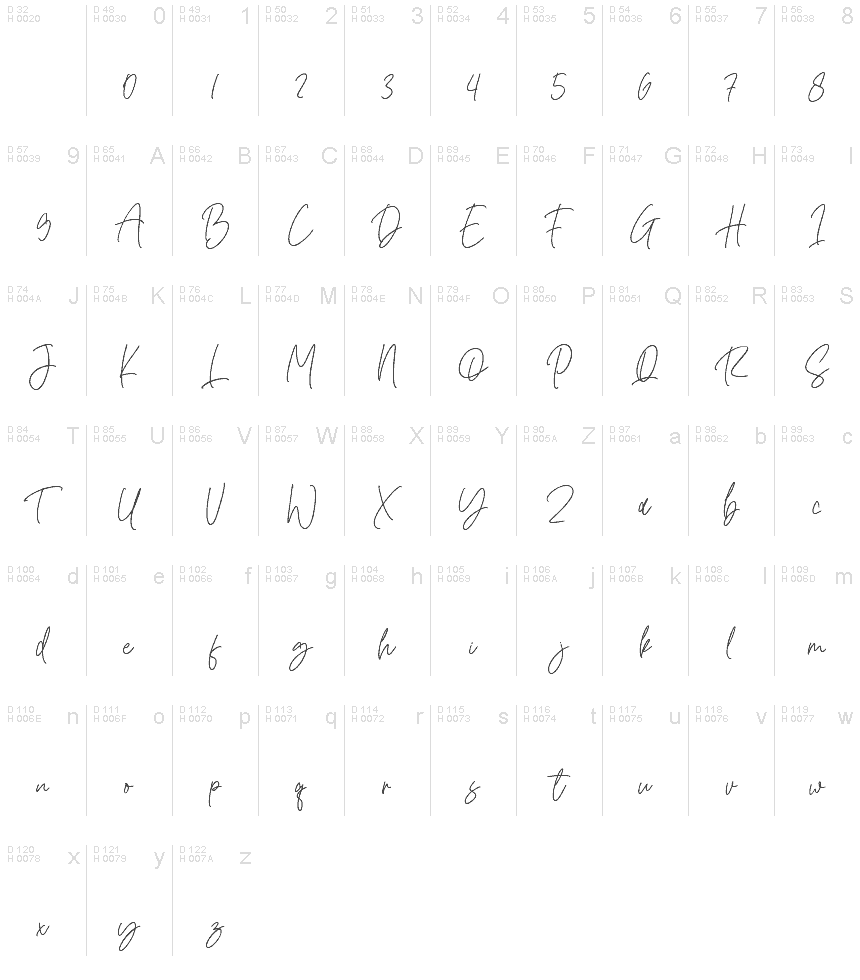
Romatine Signature
Romatine Signature font by Ibrahima Studio delivers an artistic touch with a handwritten style and elegant flow. Its expressive design brings in true organic feel that is unparalleled in typefaces. The light font builds a continuous rhythm through its smooth curves and pleasant movement across the screen. It represents the epitome of modern calligraphy drawing inspiration from everyday natural elements.
This free handwriting font is great for signatures, beauty product branding, wedding invitations, posters, greeting cards, packaging design, headers and titles. Use it in combination with your favorite fonts to bring out a subtle as well as extraordinary final result of the project at hand.